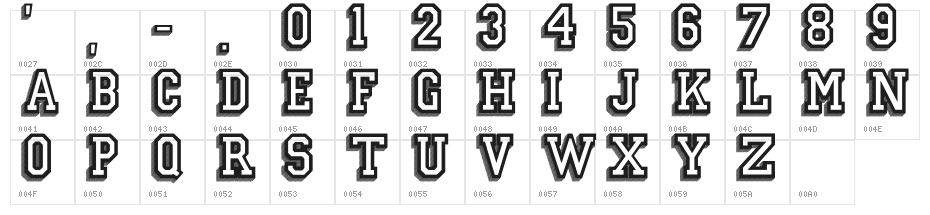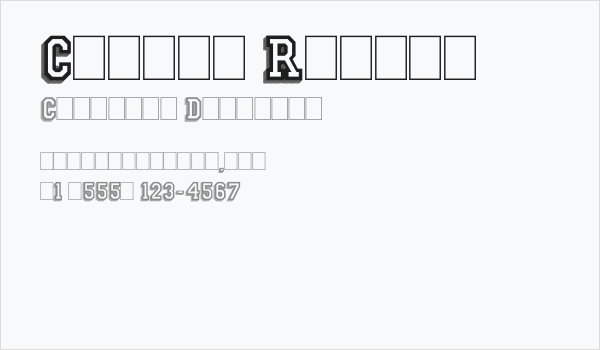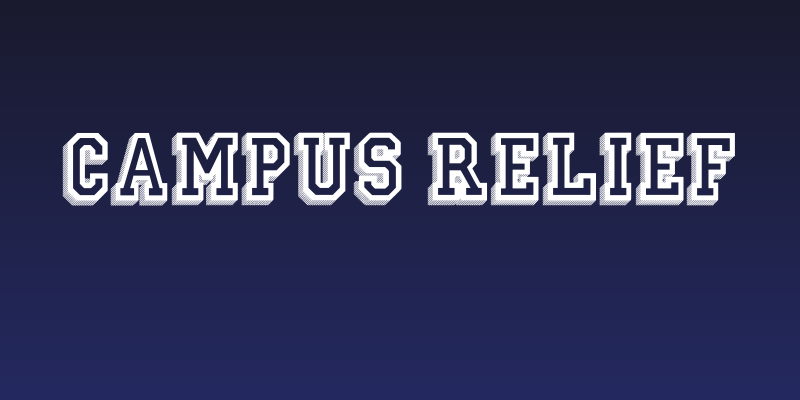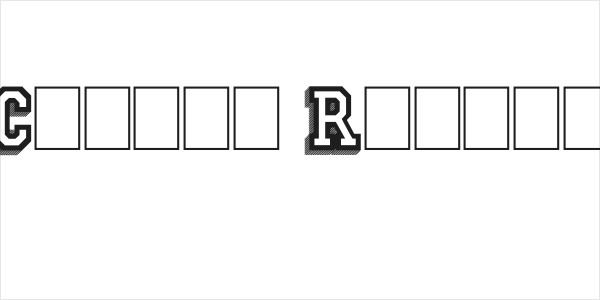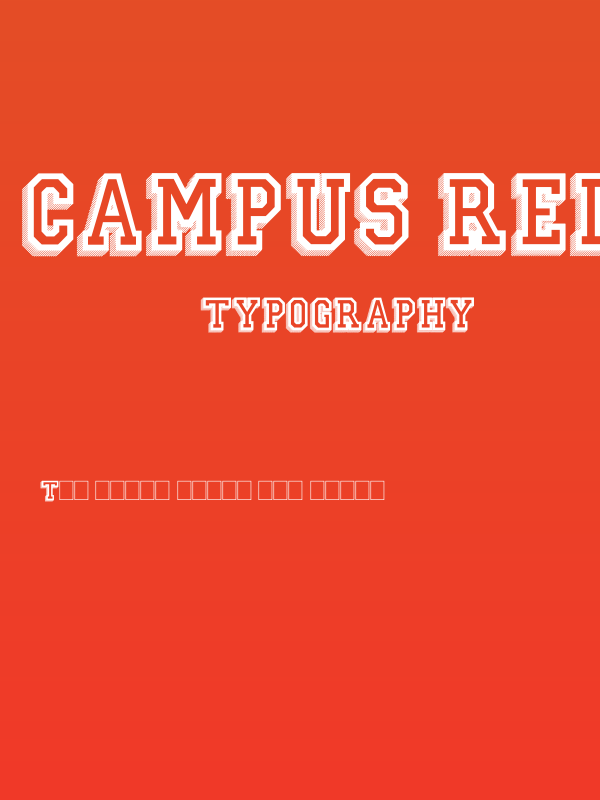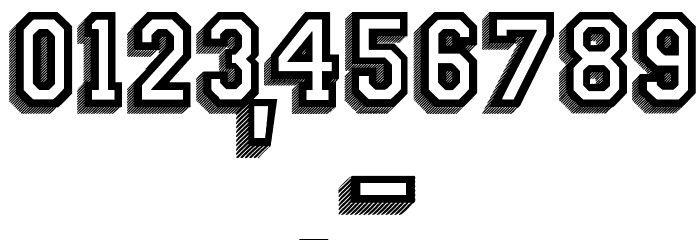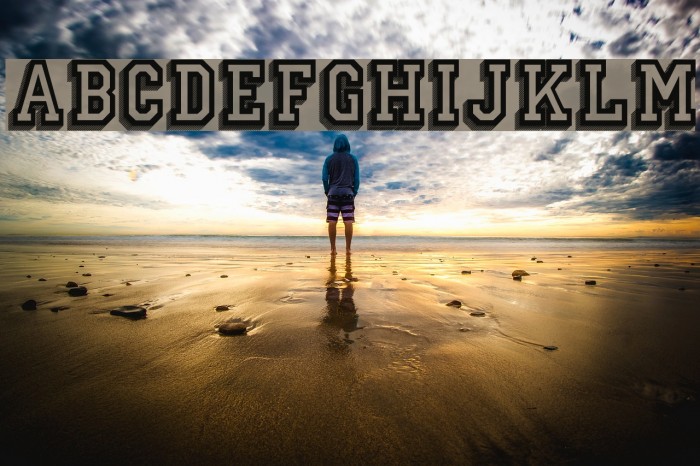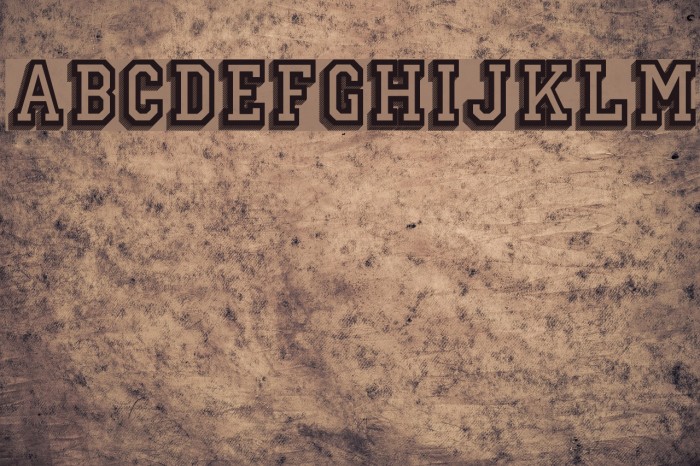
Campus Relief Font
Campus Relief Description
This font features a bold, collegiate style with a three-dimensional effect that gives it a strong, impactful presence. The letters are capitalized and outlined with a thick black border, filled with a white interior, and accented by a shadow that adds depth. The design is reminiscent of varsity or sports team lettering, making it ideal for projects that require a sense of tradition and strength. The numbers and special characters maintain the same bold and structured appearance, ensuring consistency across all uses. The font's distinct style is both eye-catching and authoritative, suitable for a variety of design needs.
| Proposed Projects | Ideal for sports team branding, university merchandise, event posters, and any project requiring a bold, traditional look. |